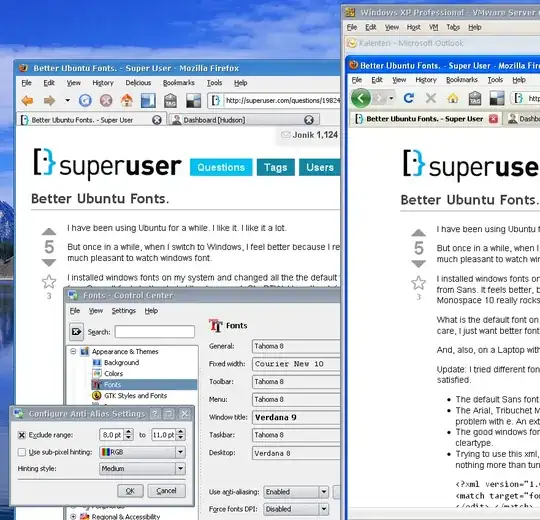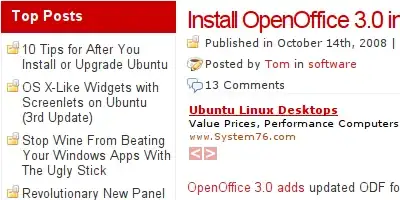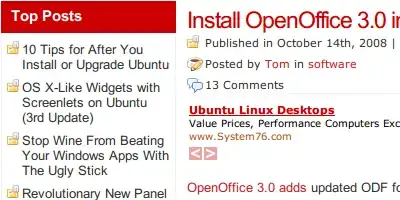
Fonts look bad and blurry in Ubuntu. When I compare a site in Ubuntu and Windows the Windows font look much more readable even after I import all of my Windows fonts. How can I change this?
7Ubuntu users who prefer Windows-style fonts may find my answer at this Super User question useful: http://superuser.com/questions/19824/better-ubuntu-fonts – Jonik Aug 07 '10 at 10:24
Just add the MS Fonts. I have always preferred them, particularly for Word documents and other cross-platform content. (See Pascal's or yeeeev's responses below.) – david6 Dec 24 '11 at 10:00
When you say “make fonts look good”, you really mean “make fonts look like I'm used to” - if you were coming from a Mac you'd be asking “how do I prevent my fonts being distorted”.
Font rendering in Windows is heavily aligned to the pixel grid, trading sharp edges for distorted fonts. This corresponds to the “full hinting” option in Appearance→Fonts→Details. You shouldn't have to touch any further configuration.
Font rendering on OS X is the other way around - it does not distort the font shapes, meaning that most glyphs span a pixel boundary. This corresponds to the “none” hinting option.
By default, Ubuntu is somewhere in between - using slight hinting which distorts the fonts a bit to make them fit the pixel-grid better.
If you're using an LCD display you should have subpixel antialiasing enabled, regardless of the hinting type.
"you really mean make fonts look like I'm used to" > Yeah, sure because GNOME/Linux/Ubuntu have usable font rendering for sure. This is one of those areas where things always have been broken under Linux and people simply ignore it and try to pin it to "user preference". Both Windows and macOS have decent solutions to font rendering, while Linux in generally shows up a blur that contributes to eye strain. – TCB13 Jul 05 '23 at 11:20
Ubuntu users who prefer Windows-style fonts may find this answer that I posted to a Super User question called "Better Ubuntu Fonts" useful.
Here is an example of what you can expect if you follow my advice:
Enable font hinting.
Right click the desktop, click change background, click the font tab and turn on subpixel smoothing. You might find you get better results through the detail button.
If your fonts are "broken" in some applications as mine were a while back in Firefox, try this:
In May 2010 patents related to TrueType hinting expired,before that FreeType used Autohinting which made non-hinted fonts look better but made professional and fully hinted fonts look crap.
Since patents related to font hinting have expired FreeType has enabled font hinting by default,you can upgrade to maverick or use the latest version of FreeType for best results.
What I think really helped out my font smoothness was from adjusting the dpi.
Now go to the Fonts tab in the Appearance settings. Click the details button in the bottom right corner. At the top of this new window it has a place to put a number. Put the first number that terminal command gave you. For example, it gave me "108x106" so I put 108 there.
Doing this will get you closer to those smooth fonts you're looking for.
There are two main places where you can set the rendering of your fonts and at first sight they don't appear to have anything to do with each other:
gnome-appearance-properties shows you settings which apply to all GTK apps and allows you to choose various levels of smoothness and hinting. The settings here apply to all fonts equally. Other font settings such as the decision whether to hint or to autohint are taken from the following:
fonconfig is the program that is in charge of font configuration and font matching across the system. You make your choices by editing /etc/fonts/local.conf (~/.fonts.conf per-user) or by making symbolic links in /etc/fonts/conf.d to various presets in /etc/fonts/conf.avail. The technical details can be read by running man fonts.conf. Firefox and Chromium read their settings directly from here, only consulting gnome-appearance-properties if no hinting settings are found at all.
In my .fonts.conf I have four sections:
Whether each font is autohinted or hinted normally. To use autohinting explicitly, set hinting to true and autohinting to true. I have autohinting at slight for most fonts except for newer "expensive" fonts and MS fonts, which get hinted normally at medium. Exceptions are DejaVu Sans Condensed, Lucida Grande, PT Sans, Segoe and Tahoma which are hinted slightly. I think the Windows style is normal hinting at full/medium (which are typically the same). The freetype documentation says that autohinting will be applied if no truetype hinting information is supplied with the font and that seems to apply in Firefox too. Take care that the